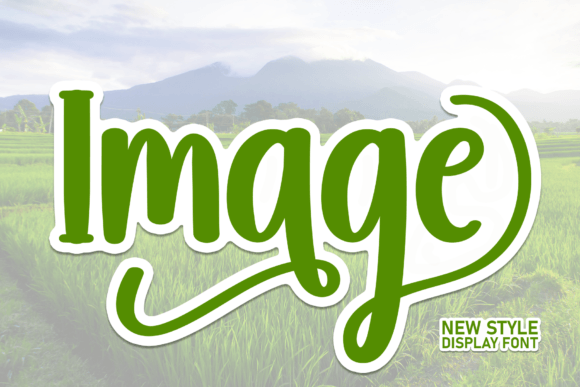
Journey into a world of festive charm with Image Font, the enchanting script font that captures the essence of a Merry Christmas. Crafted with meticulous care by William Jhorby, this font exudes a sweet and friendly aura that's sure to add a touch of magic to your creative projects.
Embark on a typographic adventure with Image Font, the perfect companion for your holiday greetings, wedding invitations, and whimsical designs. Its playful personality shines through in every letter, inviting you to express your heartfelt messages with a unique and charming flair.
Picture the joy of receiving a Christmas card adorned with Image Font's graceful swashes and delicate curves. Your words will dance across the page, spreading warmth and cheer to the hearts of your loved ones. Or, envision your wedding invitations adorned with Image Font's elegant charm, setting the tone for a day filled with love and happiness.
Whether you're designing posters, flyers, or social media graphics, Image Font will elevate your creations with its eye-catching appeal. Its versatility extends to branding and logo design, where its playful spirit can infuse your brand with a touch of whimsy and delight.